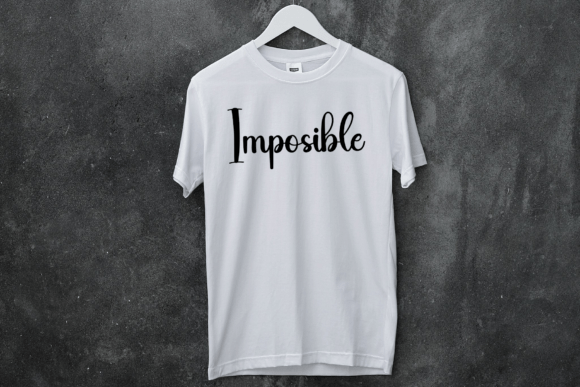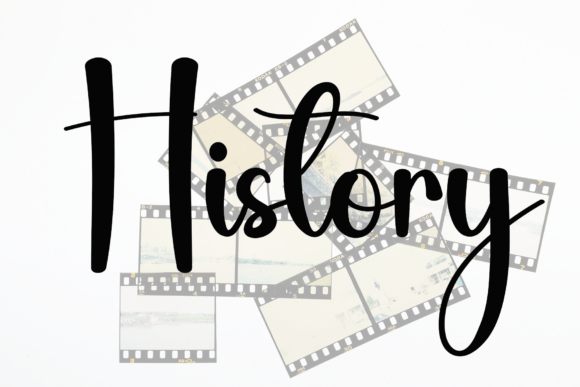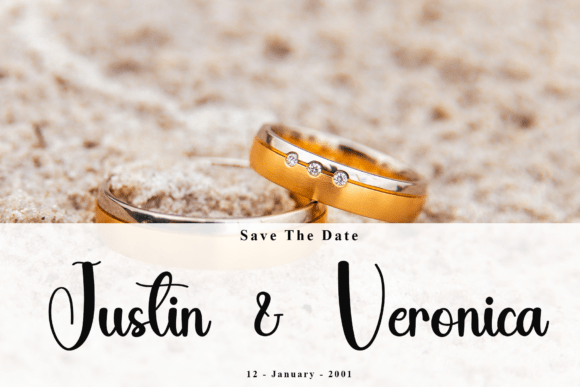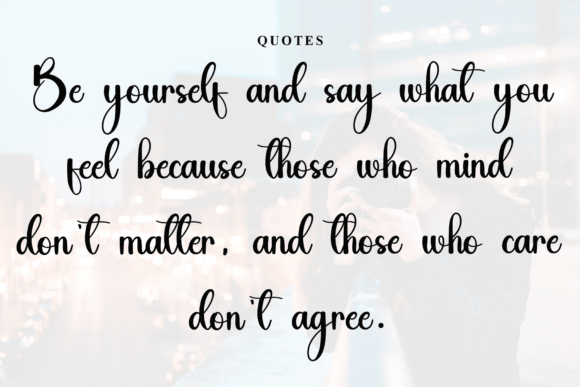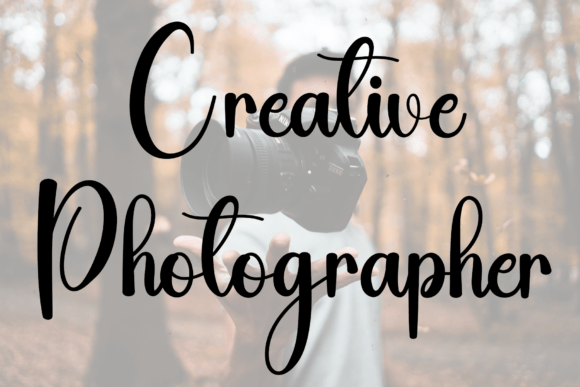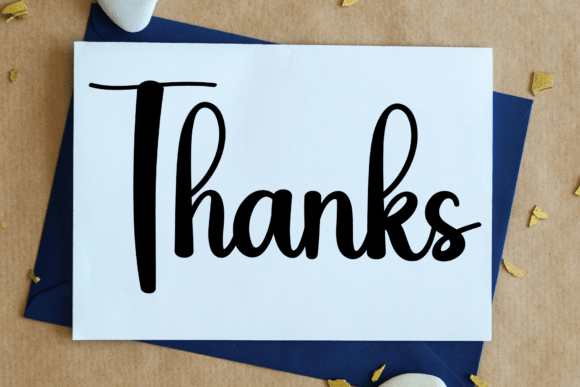
The Perfect Font for Your Next Celebration
Have you ever been scrolling through social media and stumbled upon a friend’s birthday post that makes you feel like you’re right there with them? The bright colors, the playful graphics, and of course, the font that screams ‘party time!’ – that’s what we’re talking about. As designers, we know how crucial the right font can be in setting the tone for any occasion.
Introducing the Digital Photo Font, a lively and handwritten font that captures the essence of a fun and celebratory vibe. This font is perfect for birthday cards, party invitations, or any joyful occasion that calls for a personal and warm touch. Its casual style and lively strokes make it an instant favorite among designers looking to add a creative twist to their designs.
Digital Photo Font Key Features
- Unique Characteristics: Features a unique, hand-drawn style that mimics the look of old photographs, with subtle texture and imperfections that add to its charm.
Digital Photo Font Review
I recently had the chance to experiment with the Digital Photo Font, and here’s my honest review.
- The font’s unique aesthetic is perfect for creating a nostalgic, vintage vibe in digital projects.
- The Digital Photo Font is highly customizable, allowing you to adjust the size, color, and spacing to fit your design needs.
- It’s a great option for those looking to add a touch of retro charm to their designs, from social media graphics to website headers.
- The font may not be suitable for projects that require a modern, sleek look, as it can come across as dated or even kitschy.
- The font’s legibility can be compromised at smaller sizes, making it essential to test it thoroughly in your design.
Overall, the Digital Photo Font is a solid choice for designers looking to inject a touch of retro flair into their projects. While it may have some limitations, its unique aesthetic and customization options make it a valuable addition to any design toolkit.
Some common use cases for Digital Photo Font include:
- Creating personalized photo albums or scrapbooks.
- Designing custom photo gifts or cards.
- Creating digital art or graphics with a personal touch.